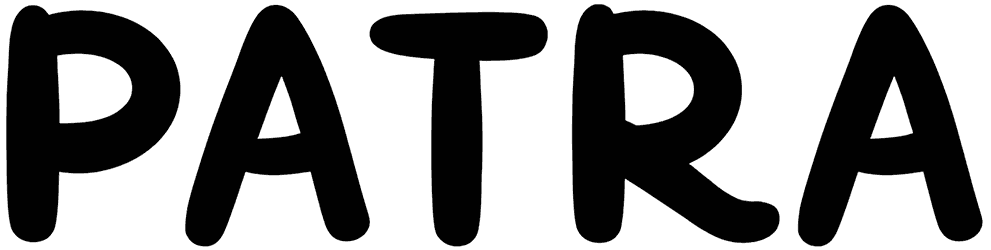
Patra Font
Meet Patra, an adorable comic font with a bold and smooth structure. It conjures up a playful and friendly feel that makes it a good option for funny concepts. This font includes a full set of characters and is well-suited for kids’ illustrations, apparel printing, video games, story books, and poster designs.
Get creative with PATRA Playful Font.
This font comes in outline and filled form so you can style it in a number of ways. This is a basic hand lettering font, Diverse to use anywhere but cute enough to stand out wherever it is used. This font is perfect for designing designs for kids, comics, posters and quotes. fun branding, editorial headers, products, Instagram announcements, web banners, book covers, logos, inspirational quotes, and more!